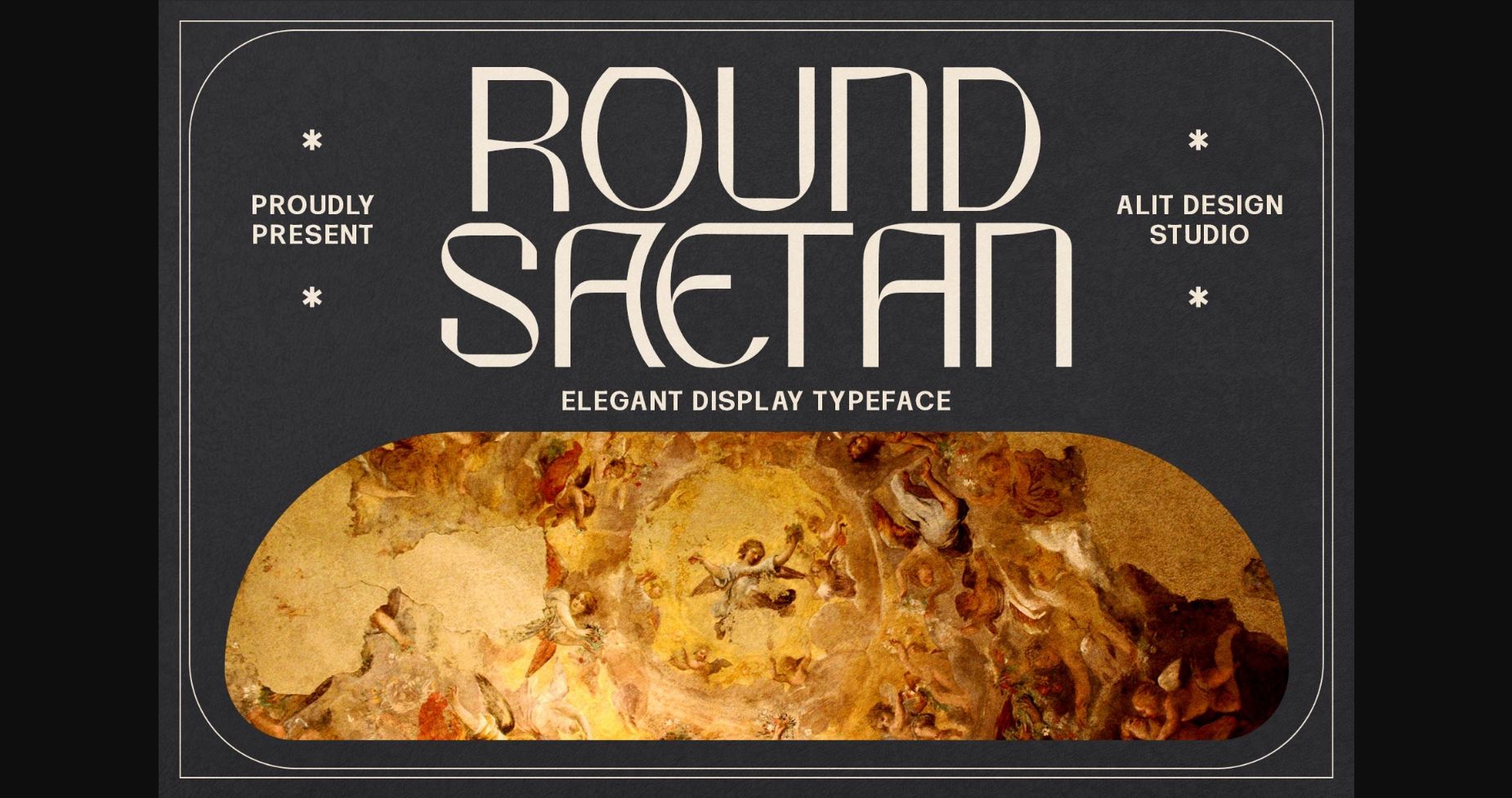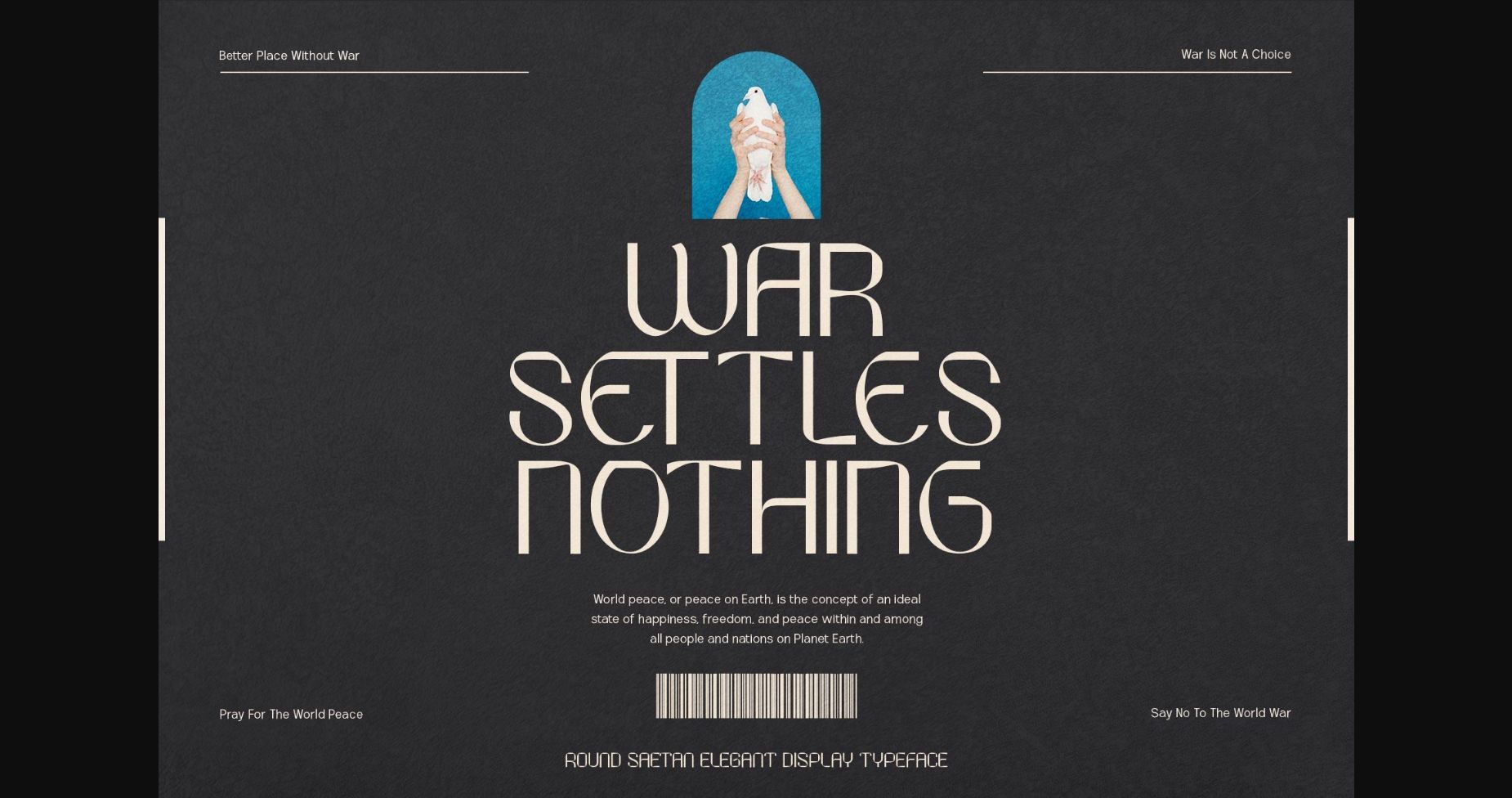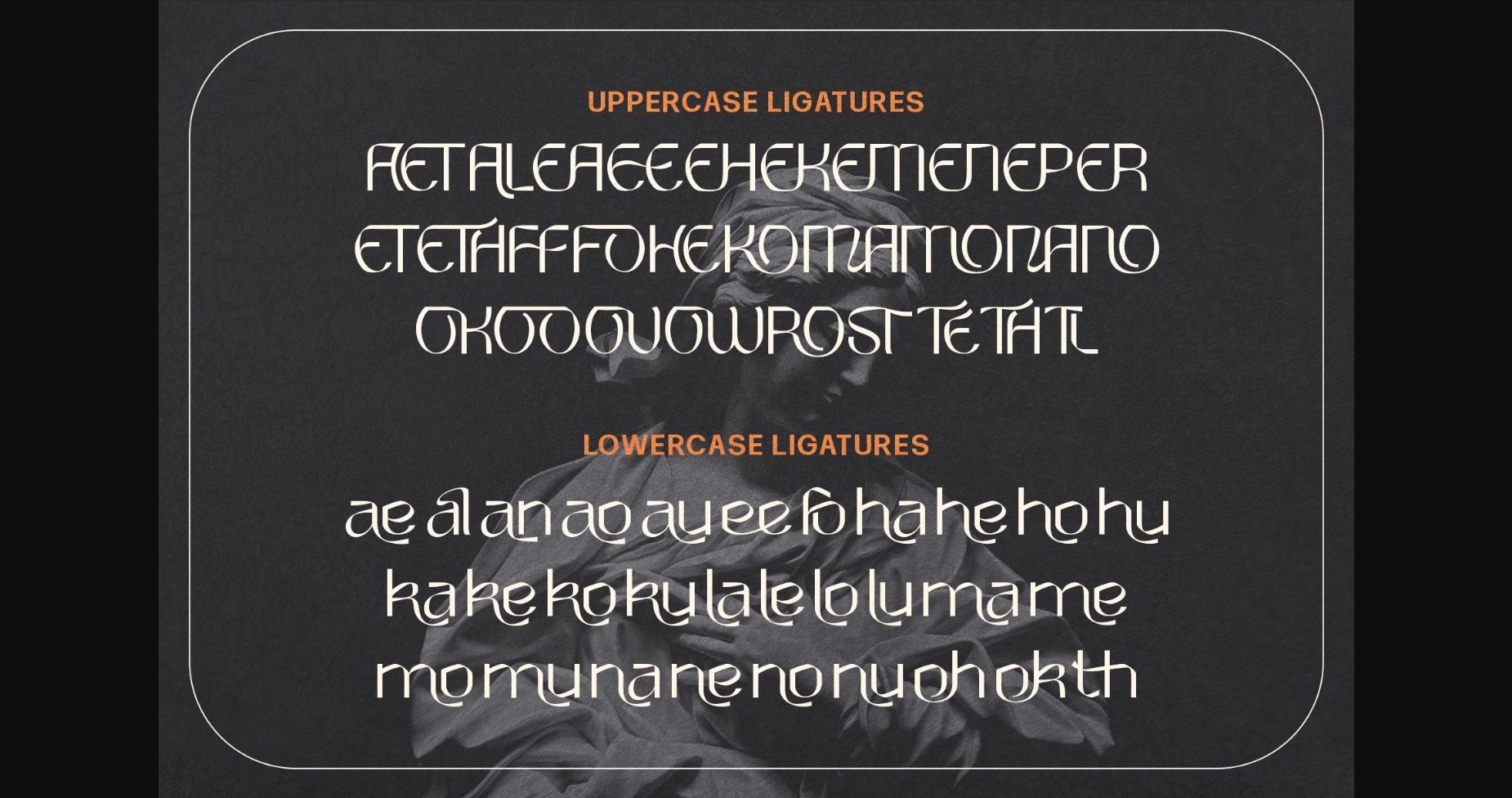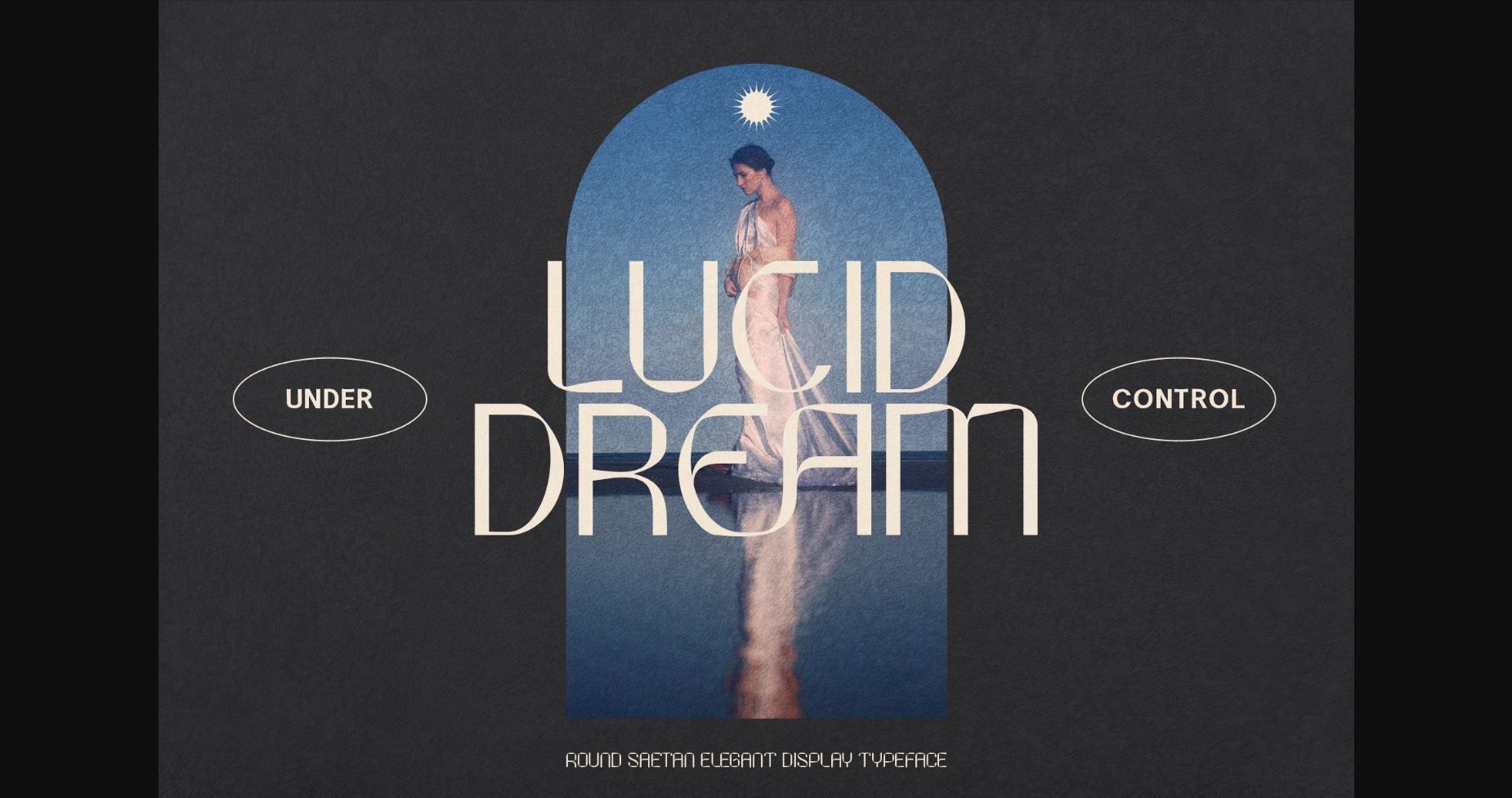
About Round Saetan Font
Round Saetan was created with a modern concept of a display font which gives a unique impression because it has a folded shape, like a ribbon. The sans serif style adopted by Round Saetan is a 2022 font style that has a unique swash alternative and a large selection of ligatures.
Sans Serif typefaces such as Round Saetan are easy to apply to any design, especially to those with an elegant and smooth concept.